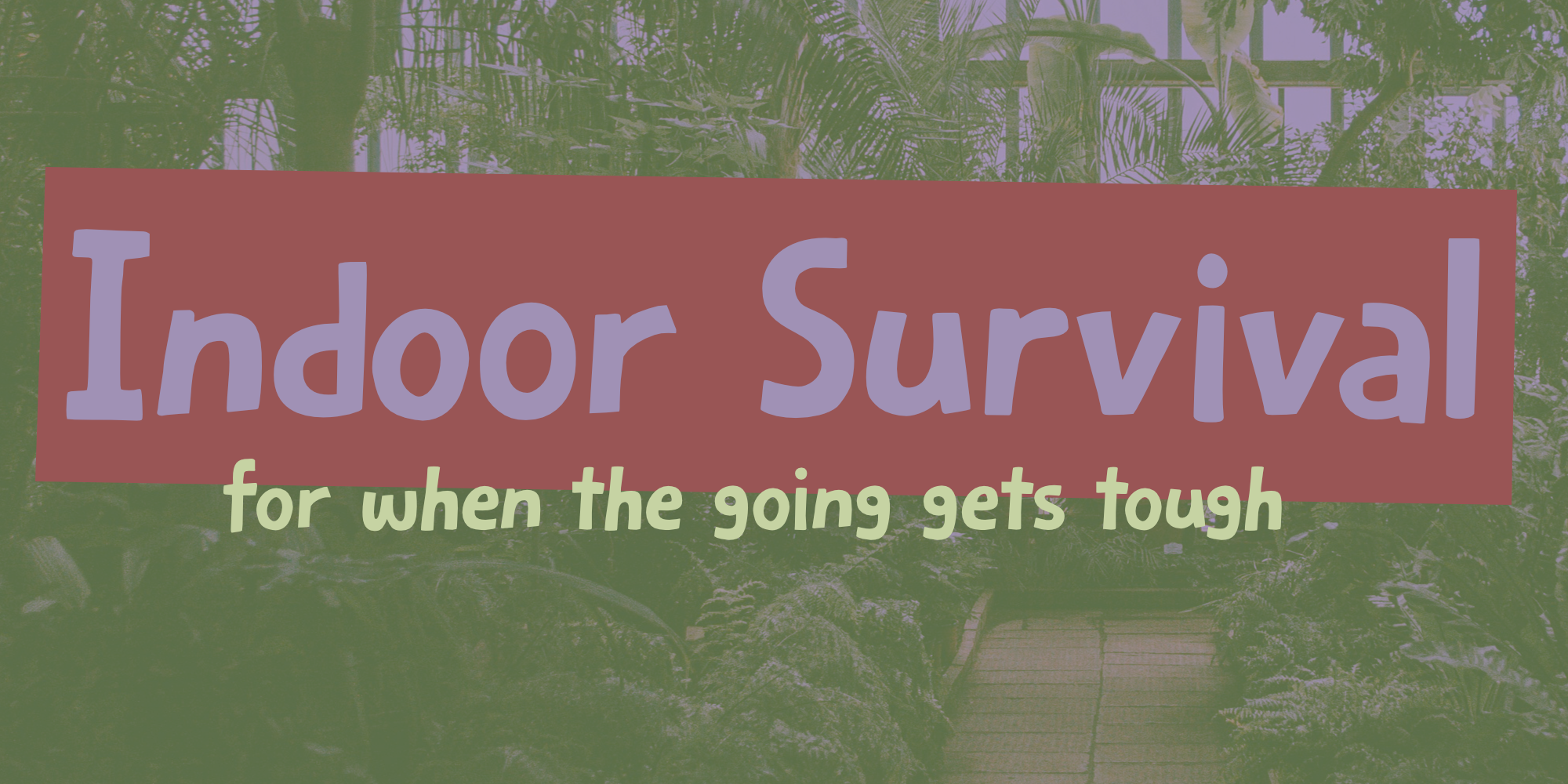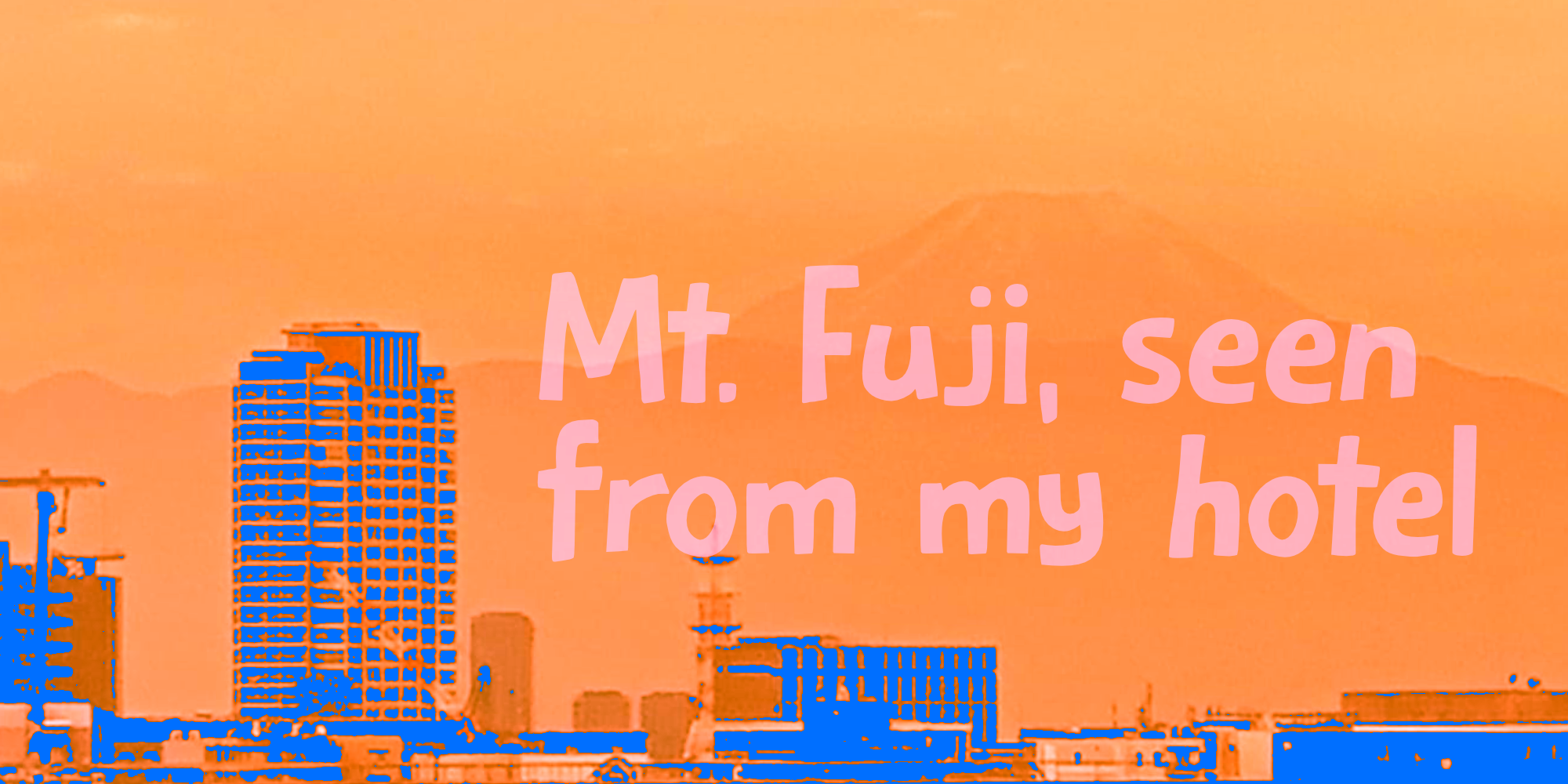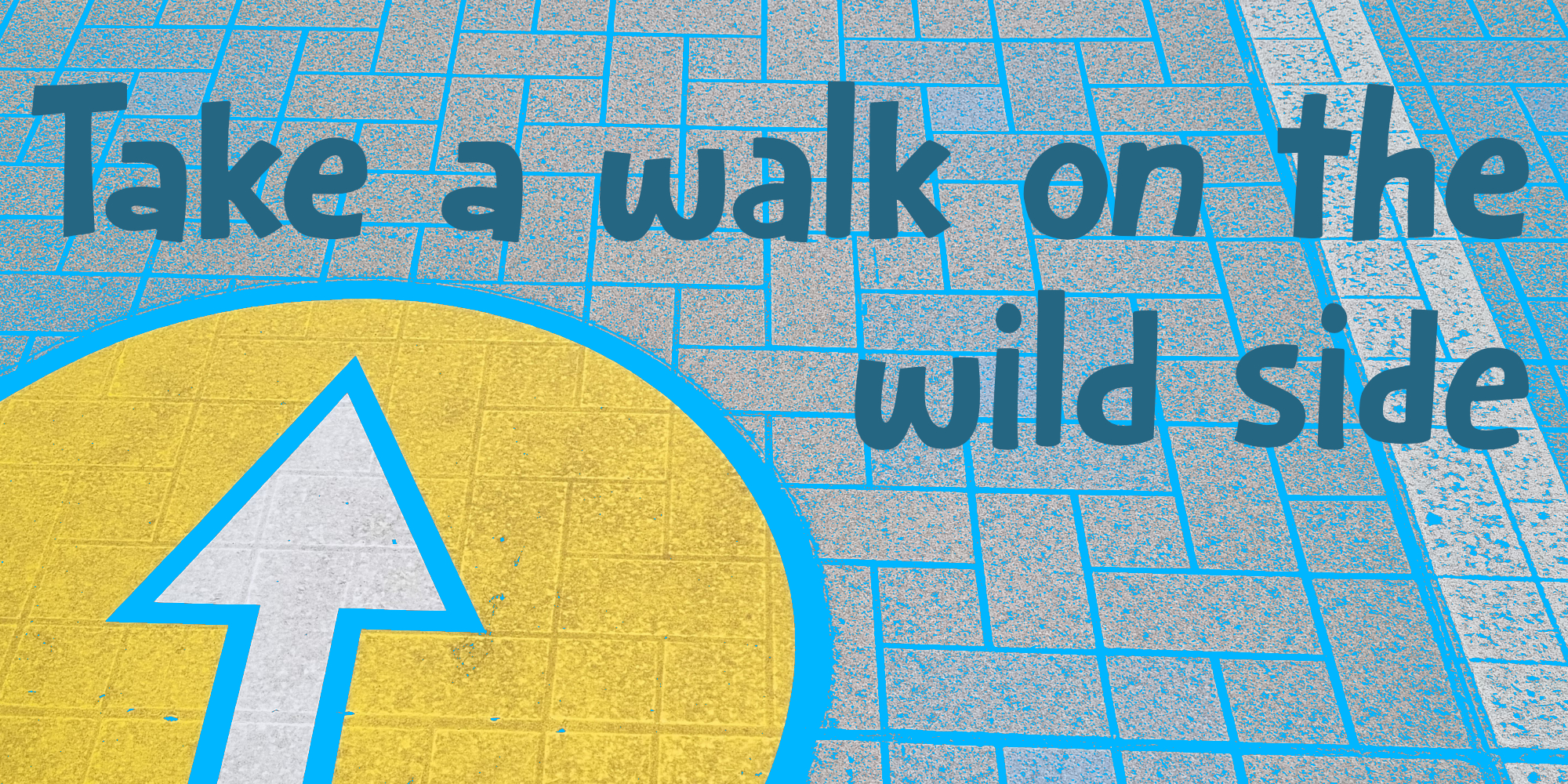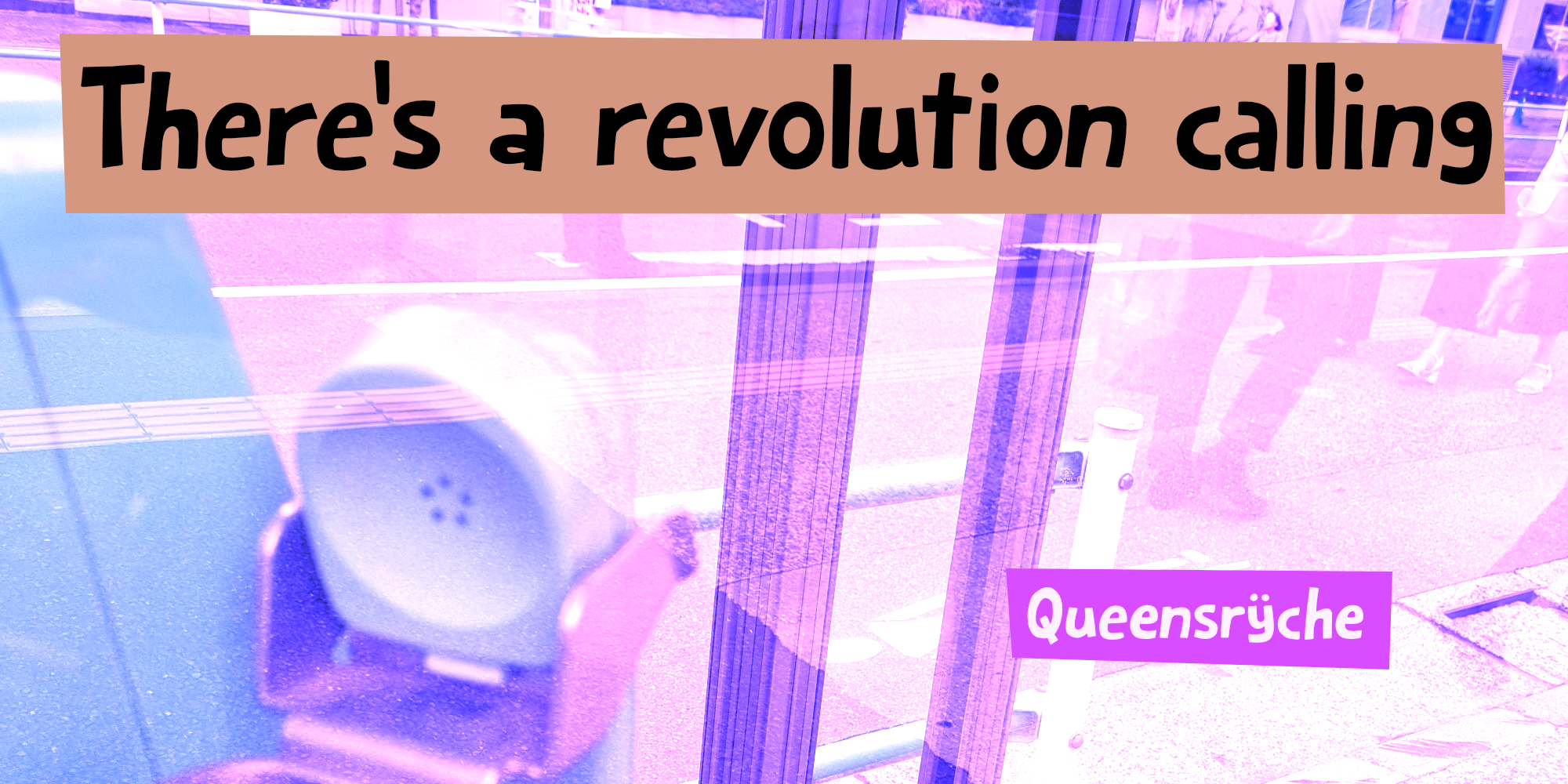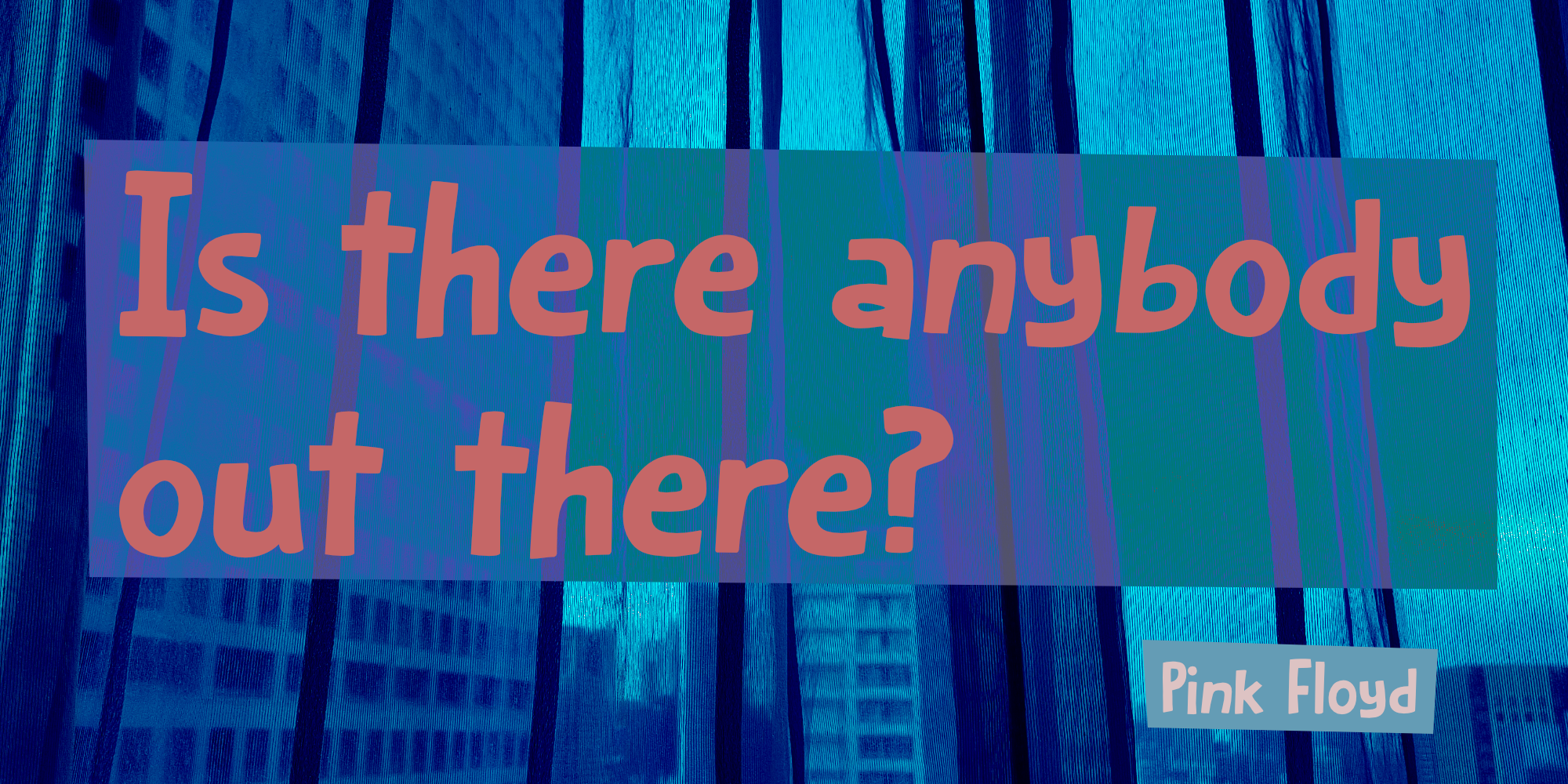
Indoor Survival (2 fonts)
Indoor Survival was made with a convenience store pen and really thin Japanese paper. It kind of reminds me of the fonts I used to make back in the day. Indoor Survival comes with all the trimmings and a trove of language support.